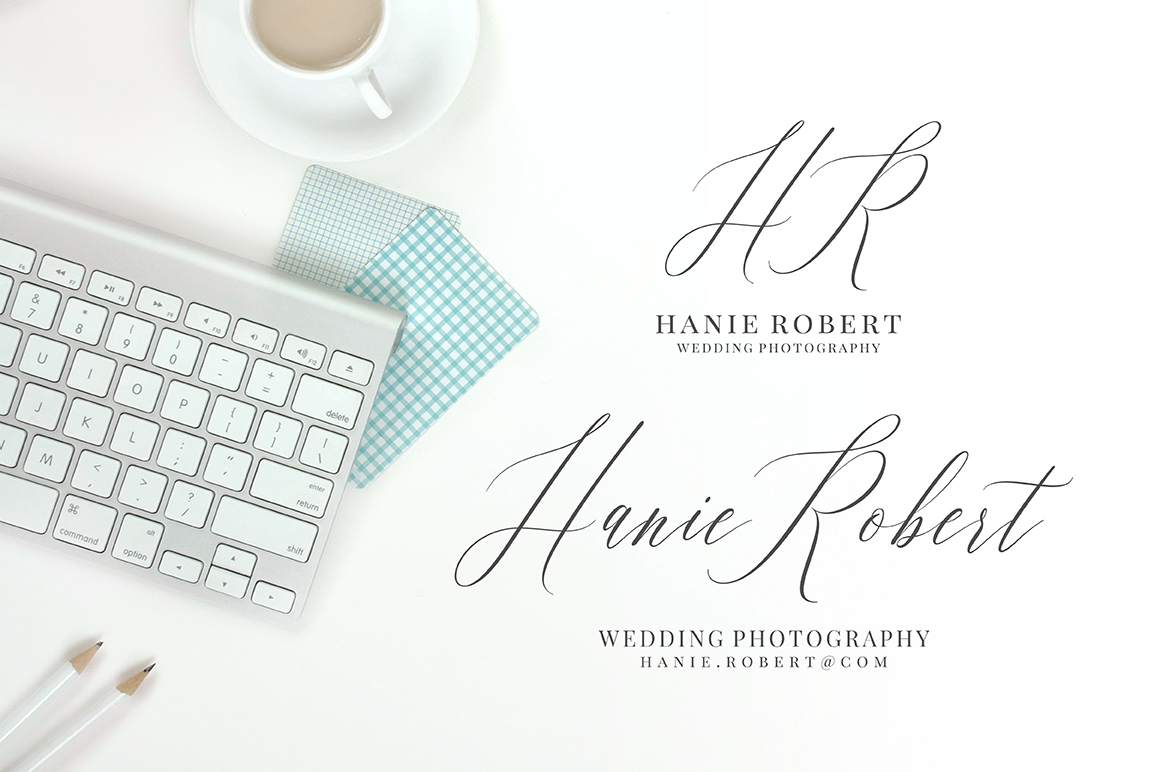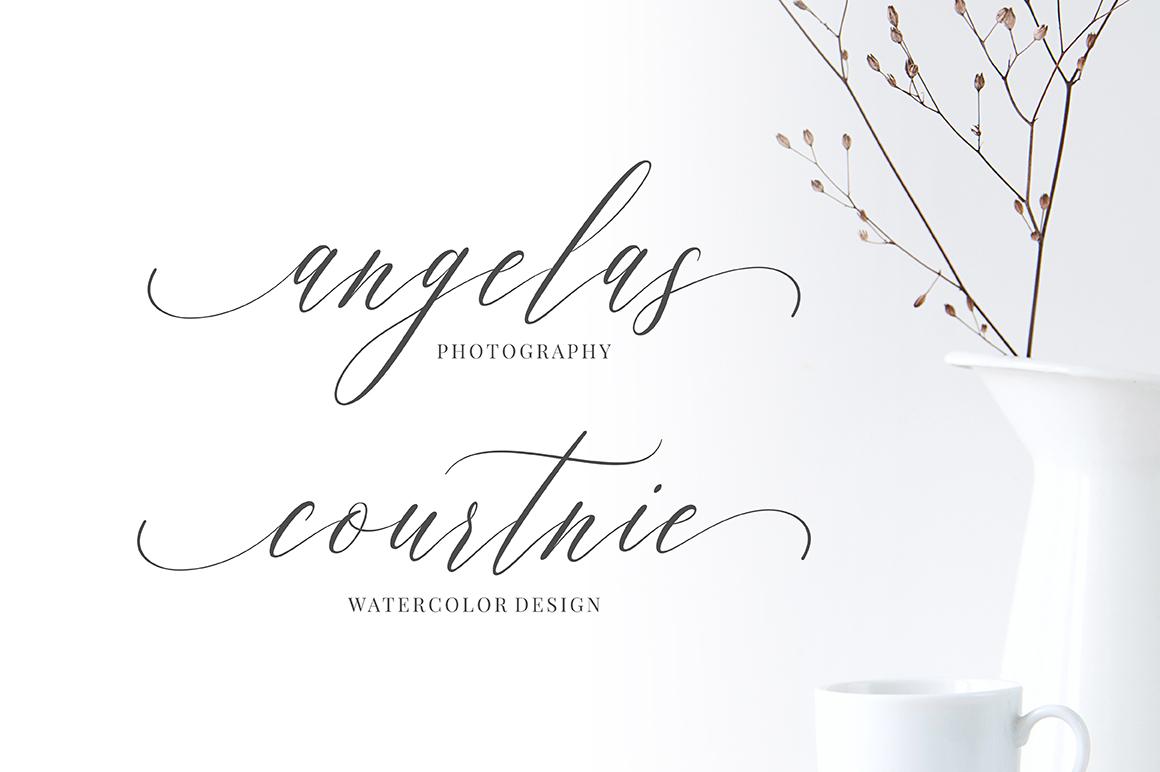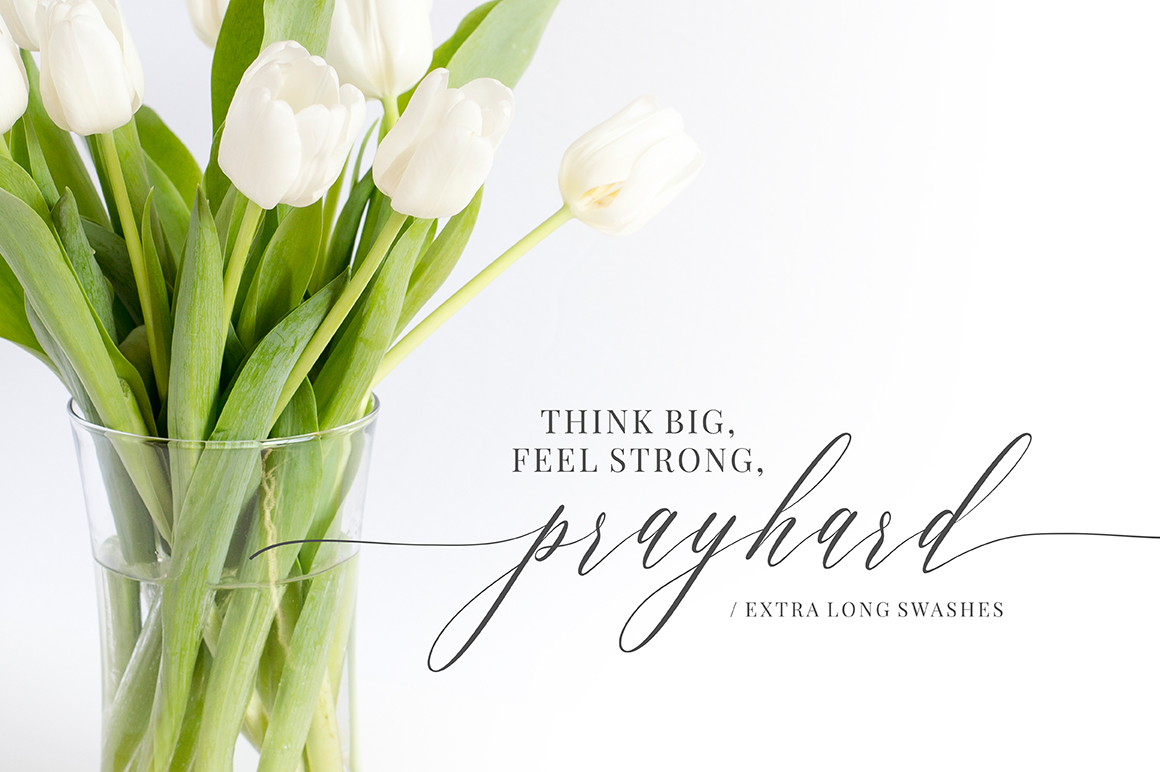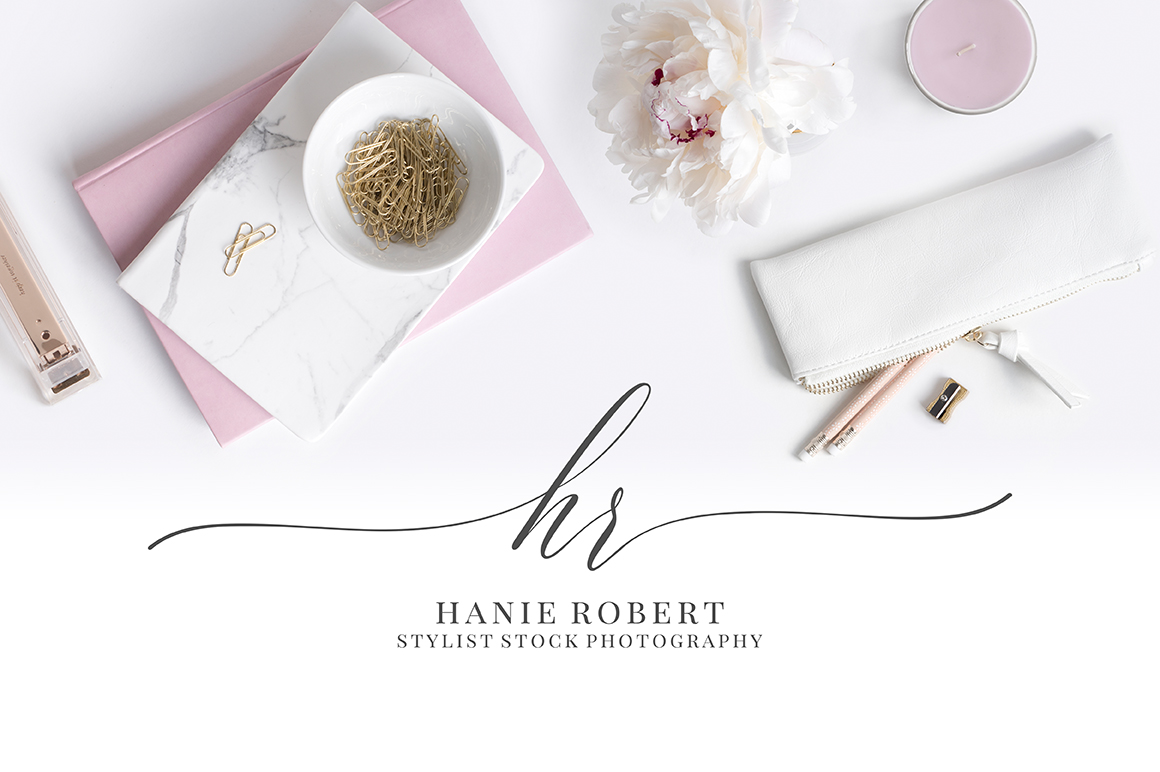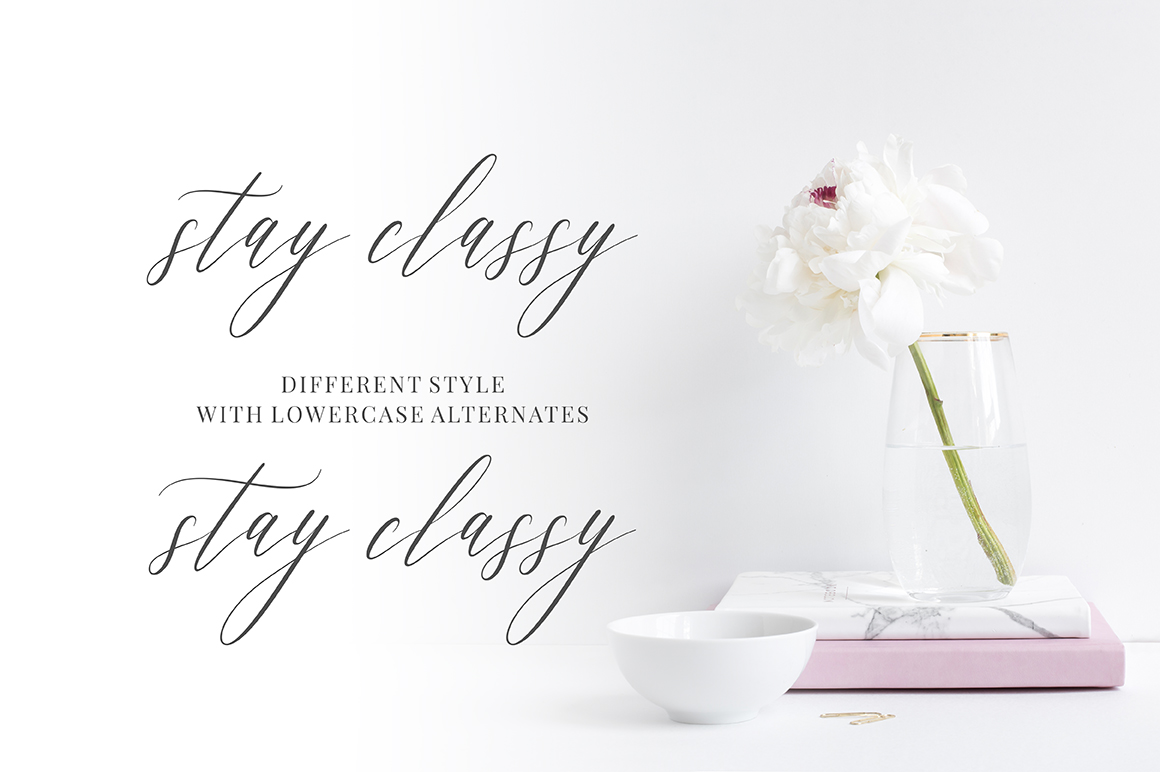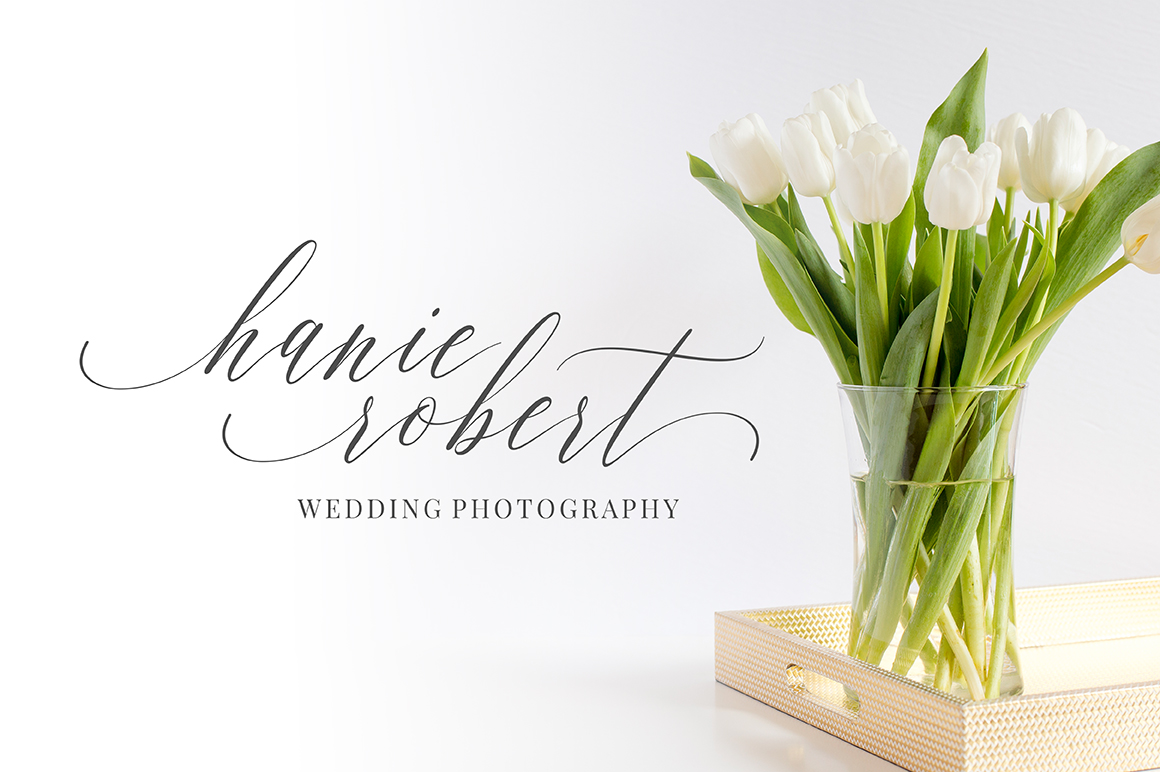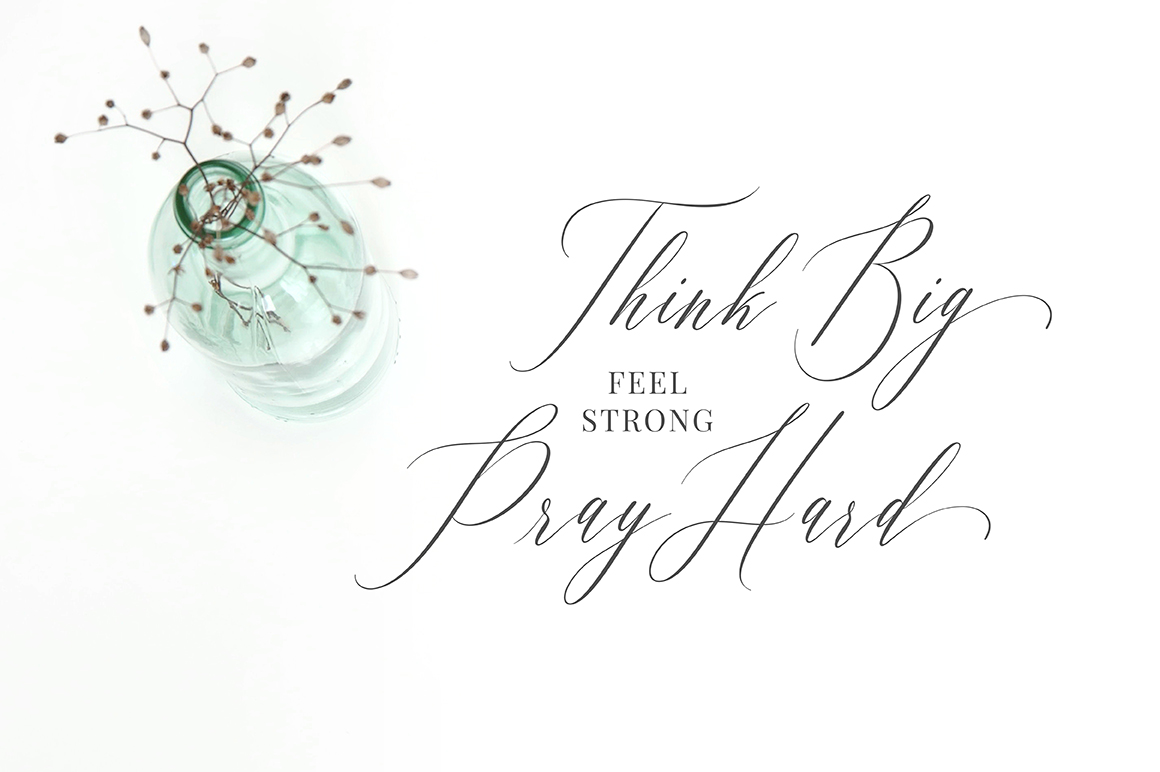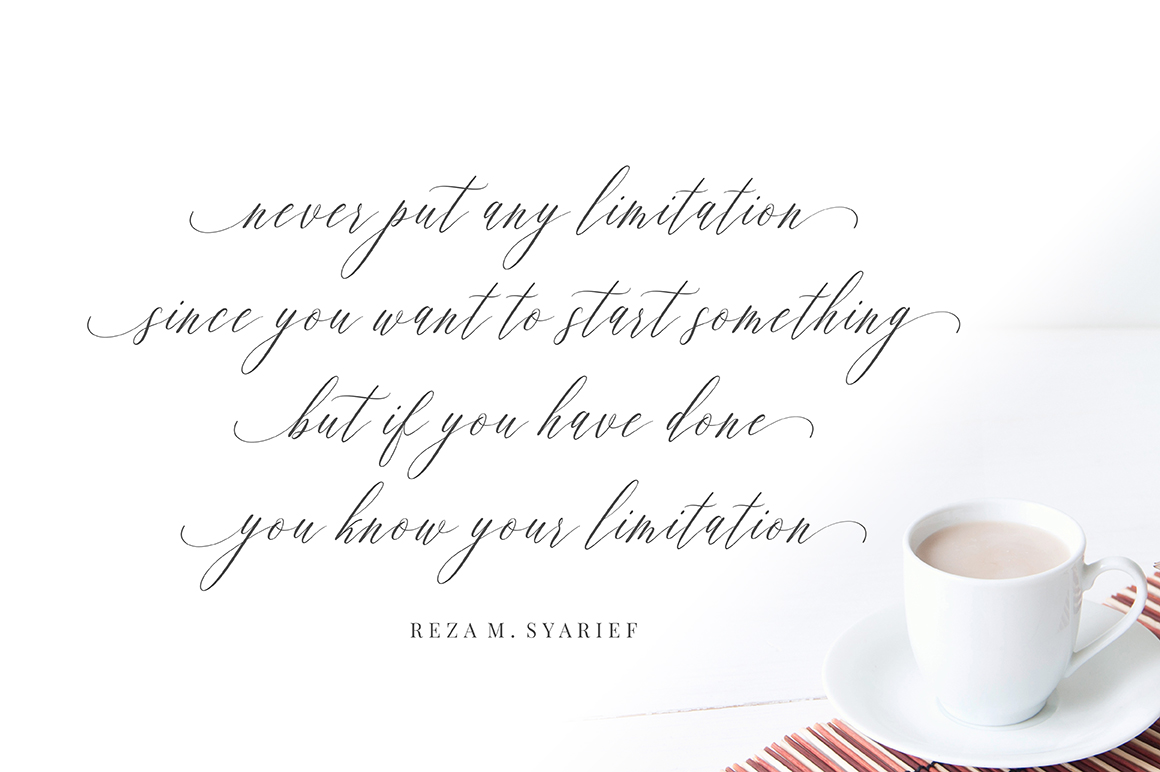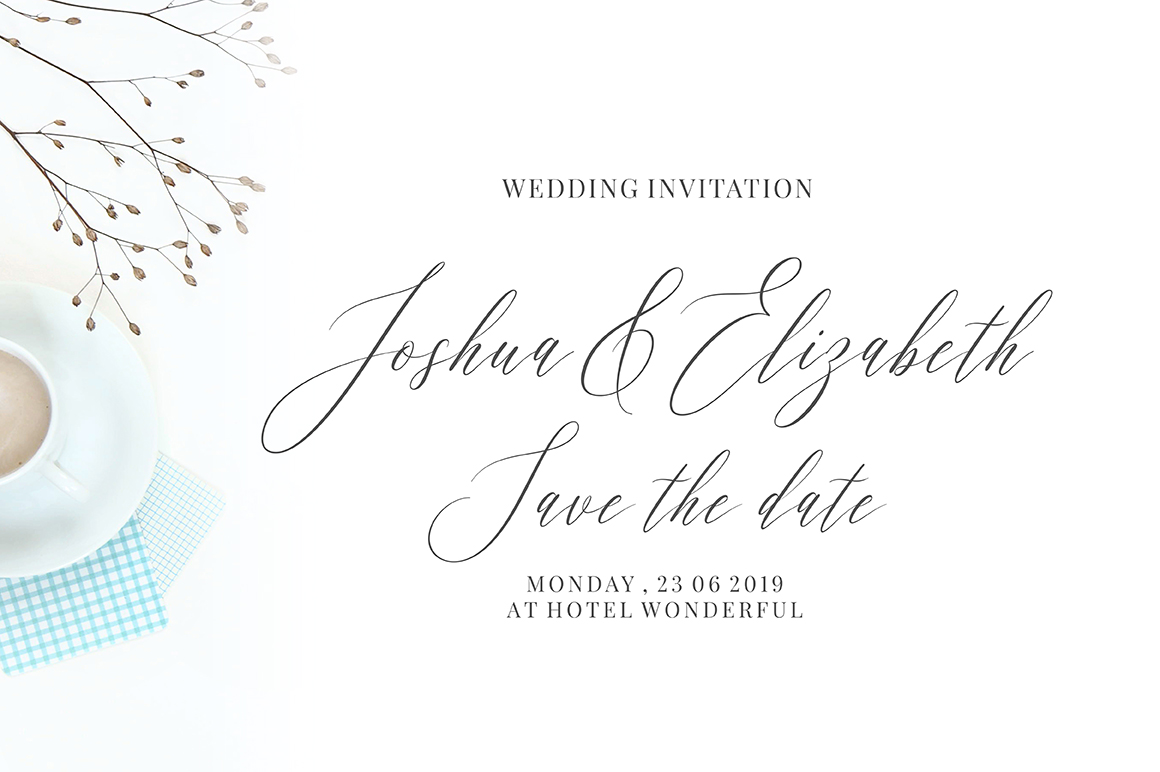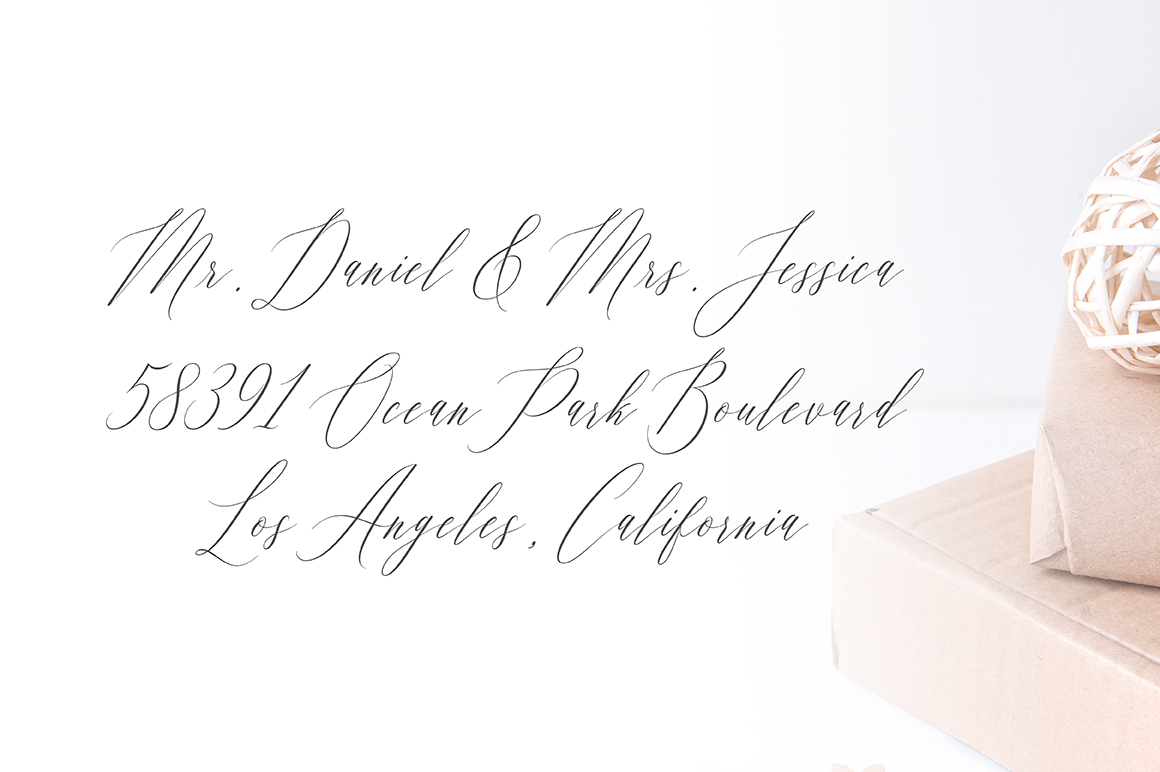
Feelsmooth Font
About Feelsmooth Font
Feelsmooth is a modern calligraphy that features a varying baseline, smooth delicate lines, and an elegant approach. This is a heavyweight script with over 350 glyphs and 167 alternate characters so you can customize your typographic designs.